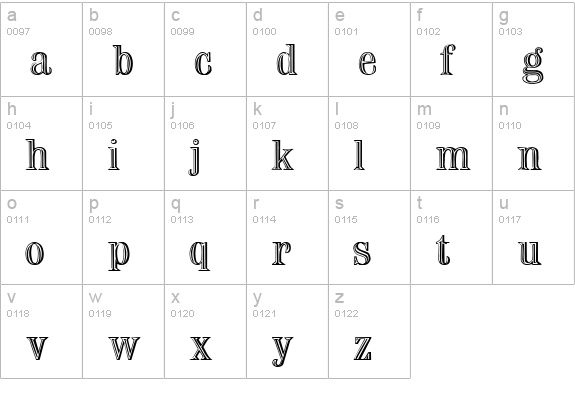
Nauert Regular Font Details
Nauert Regular is the standard, neutral variant in the Nauert typeface family \xE2\x80\x94 well suited to general body text, paragraphs, and standard typographic work.
Nauert Regular is a classic and versatile font that exudes elegance and sophistication. With its clean lines and balanced proportions, this font is perfect for a wide range of design projects, from branding and logos to invitations and editorial layouts. Featuring a timeless appeal, Nauert Regular commands attention and adds a touch of refinement to any design. Its legibility and clarity make it an ideal choice for both body text and headlines, ensuring that your message is delivered with utmost clarity and impact. Available for free download at FontsMarket.com, Nauert Regular offers designers and typographers a valuable resource for their creative endeavors. Whether you're a professional designer or a hobbyist, this font provides you with the opportunity to elevate your work to new heights without any cost. So, why wait? Embrace the beauty of Nauert Regular and enhance your designs with its timeless charm. Download it for free at FontsMarket.com and experience the freedom of creating stunning visuals that leave a lasting impression.